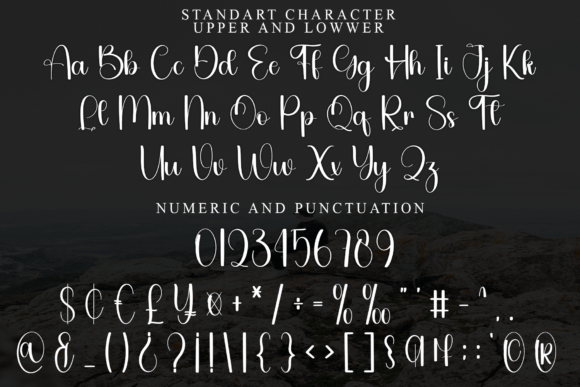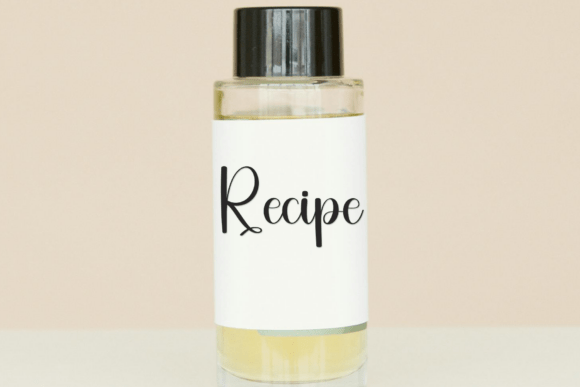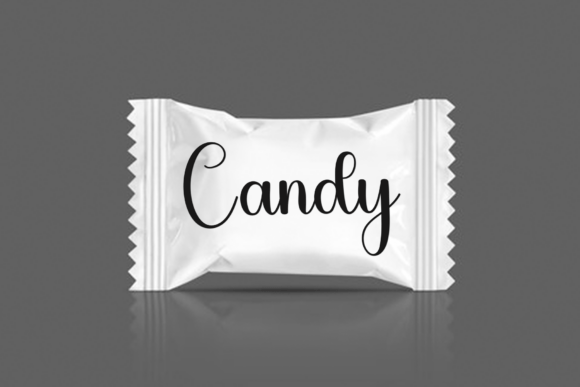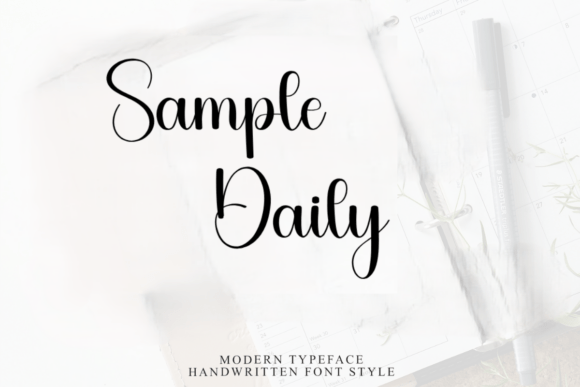
Introduction to Sample Daily Font
Sample Daily is a flowing, modern script font that’s full of handwritten charm.
It brings sophistication and approachability together, making it ideal for educational projects, planners, stationery, and creative logos A script that speaks with confidence and warmth.
Key Features of Sample Daily Font